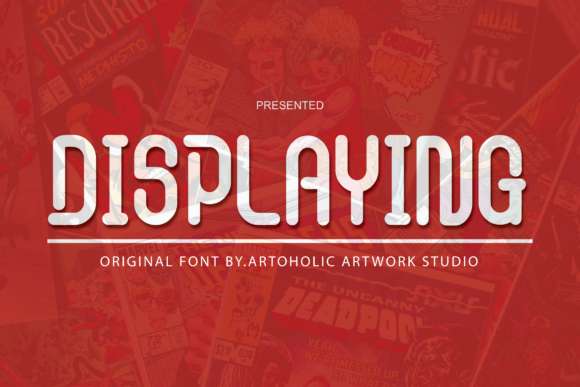
Enter Displaying Font, a cool, fun, and adaptable display font that’s about to become your new best friend. Whether you’re working on a project for a trendy startup, a bold advertising campaign, or a simple yet elegant logo, Displaying Font has got you covered. Its unique blend of style and functionality makes it a valuable asset for designers of all levels, from beginners to pros.
Key Features of Displaying Fonts
- Unique Characteristics: Displaying fonts often feature bold, dramatic letterforms and intricate details, making them ideal for use in attention-grabbing applications, such as movie titles, sports branding, and luxury packaging.
- Scalability: Displaying fonts are designed to be highly scalable, allowing them to be easily resized and adapted for use in various contexts, from small mobile screens to large digital billboards.
- Font Variations: Many displaying fonts offer a range of variations, including bold, italic, and condensed versions, providing designers with flexibility and creative freedom when selecting a font for a particular project.
Displaying Font Review
Overall, I was pleasantly surprised with Displaying Font. ✨ It has a clean and modern design that works well with a variety of layouts and typography styles. The font’s proportions and letter spacing are well-balanced, making it easy to read. Additionally, Displaying Font has a wide range of weights and styles, giving designers plenty of options to choose from.
- ✨ The font’s flexibility in terms of size and spacing is impressive, allowing designers to create visually appealing compositions.
- ✨ Displaying Font’s x-height is well-balanced, making it suitable for both body and heading text.
- ✨ The font’s wide range of weights and styles allows designers to create contrast and hierarchy in their designs.
However, I do have a few reservations about Displaying Font. ⚠️ One limitation is its limited language support, which may be a concern for designers working on international projects. Additionally, the font’s italic styles can sometimes look a bit awkward, particularly at smaller sizes.
- ⚠️ Limited language support may be a concern for designers working on international projects.
- ⚠️ The font’s italic styles can sometimes look a bit awkward, particularly at smaller sizes.
Overall, I think Displaying Font is a solid choice for designers looking for a clean and modern font. While it has some limitations, its strengths make it a worthwhile option for a variety of projects.